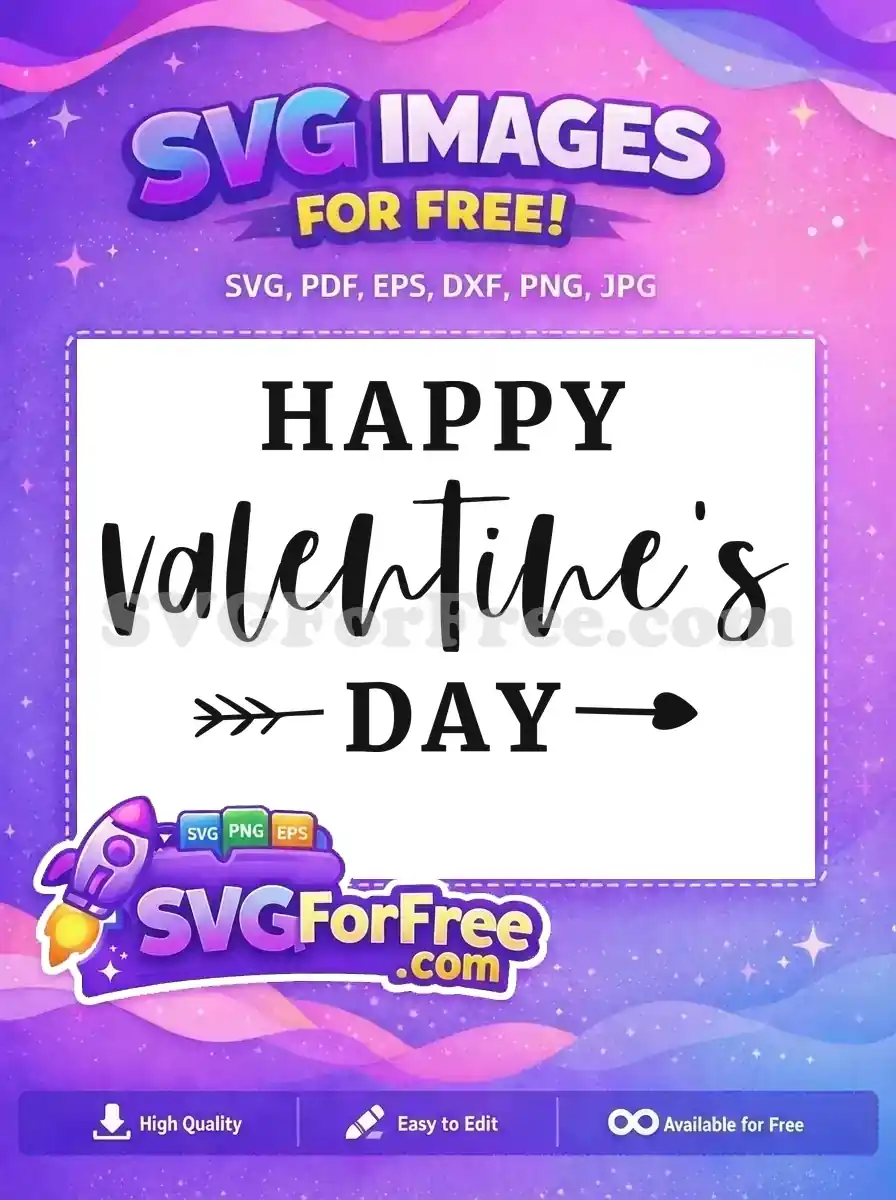
Free Mixed Fonts Cursive Free Heart Arrow Graphic Happy Valentines Day Free SVG – Instant Download
Clean ‘HAPPY Valentine’s DAY’ text with arrow, a modern free greeting.
Free Mixed Fonts Cursive Free Heart Arrow Graphic Happy Valentines Day Free SVG